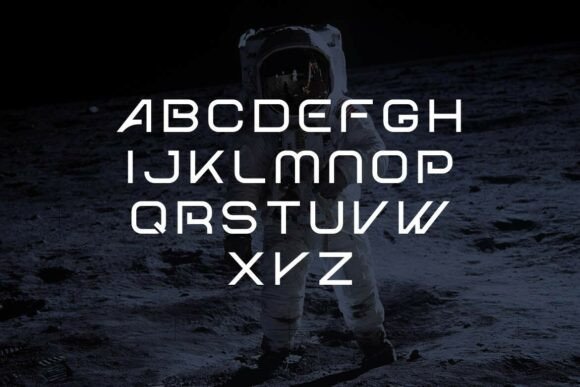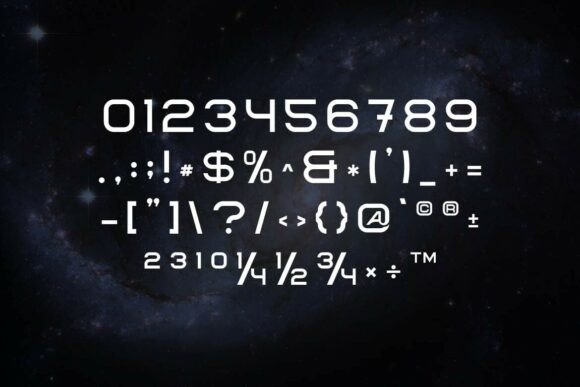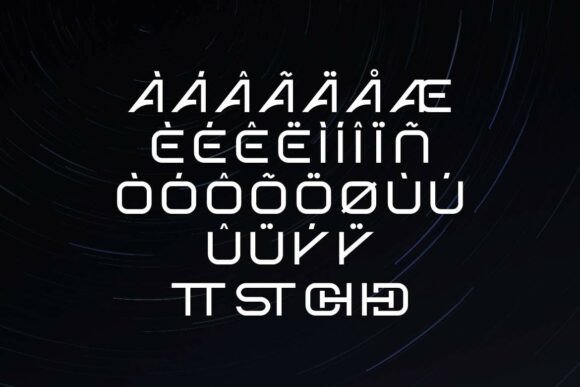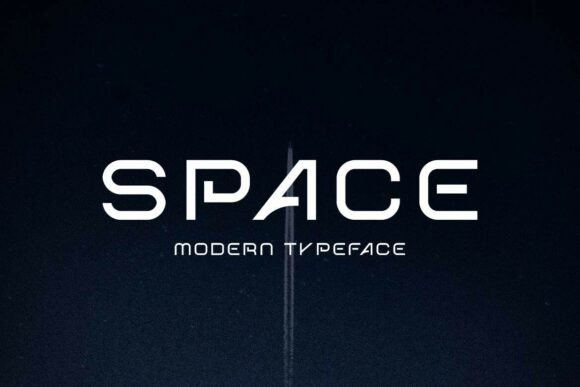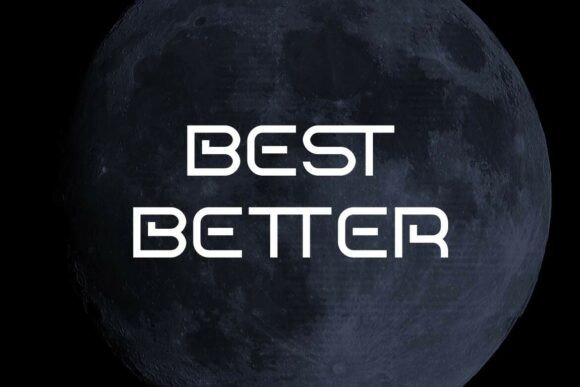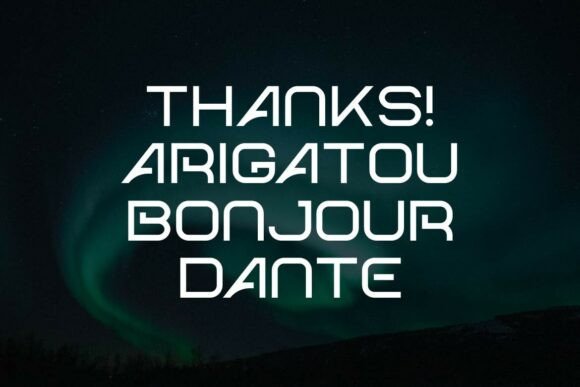
Avalont Font: The Ultimate Choice for Futuristic Designs
In the realm of typography, fonts play a crucial role in shaping the identity of a brand, product, or service. With the rapid evolution of technology, designers and crafters are constantly on the lookout for innovative and sleek fonts that can keep up with the futuristic vibe. This is where Avalont Font comes into play – a game-changing tech font designed specifically for the future.
What is Avalont Font?
Avalont is a cutting-edge font that embodies the essence of modern technology. Its design is characterized by geometric forms, angular cuts, and a distinct sci-fi flair. This unique combination makes Avalont perfect for a wide range of applications, including technology branding, digital interfaces, game titles, sci-fi posters, app UI, and futuristic product packaging.
Key Features of Avalont Font
- Geometric Forms: Avalont’s design is rooted in geometric shapes, giving it a clean and futuristic look.
- Angular Cuts: The font’s angular cuts add a sense of sharpness and modernity, making it ideal for tech-related designs.
- Modern Sci-Fi Flair: Avalont’s sci-fi elements give it a unique edge, perfect for creating designs that are out of this world.
- Versatility: The font’s versatility makes it suitable for various applications, from digital interfaces to print materials.
Use Cases for Avalont Font
Avalont’s versatility makes it an excellent choice for a wide range of design projects. Here are some of the most popular use cases:
- Technology Branding: Create a strong brand identity with Avalont’s futuristic and sleek design.
- Digital Interfaces: Use Avalont to create intuitive and user-friendly digital interfaces that are both modern and engaging.
- Game Titles: Add a touch of sci-fi flair to your game titles with Avalont’s unique and captivating design.
- Sci-Fi Posters: Create eye-catching posters that transport your audience to a futuristic world with Avalont’s bold and geometric design.
- App UI: Design user-friendly and visually appealing app interfaces with Avalont’s clean and modern typography.
- Futuristic Product Packaging: Give your product packaging a futuristic edge with Avalont’s innovative and sleek design.
Benefits of Using Avalont Font
By choosing Avalont Font for your design projects, you can enjoy a range of benefits, including:
- Unique Design: Avalont’s distinctive design sets it apart from other fonts, ensuring your designs stand out from the crowd.
- Improved Brand Identity: Avalont’s futuristic design can help create a strong brand identity that resonates with your target audience.
- Enhanced User Experience: Avalont’s clean and modern typography can improve user experience by creating intuitive and user-friendly interfaces.
- Flexibility: Avalont’s versatility makes it suitable for a wide range of design projects, from digital interfaces to print materials.
Avalont Font is a game-changing tech font designed for the future. Its unique combination of geometric forms, angular cuts, and modern sci-fi flair makes it perfect for a wide range of design applications. Whether you’re a designer, crafter, or simply someone looking for a futuristic font, Avalont is an excellent choice. With its versatility, unique design, and range of benefits, Avalont Font is sure to revolutionize the way you approach typography in your design projects.